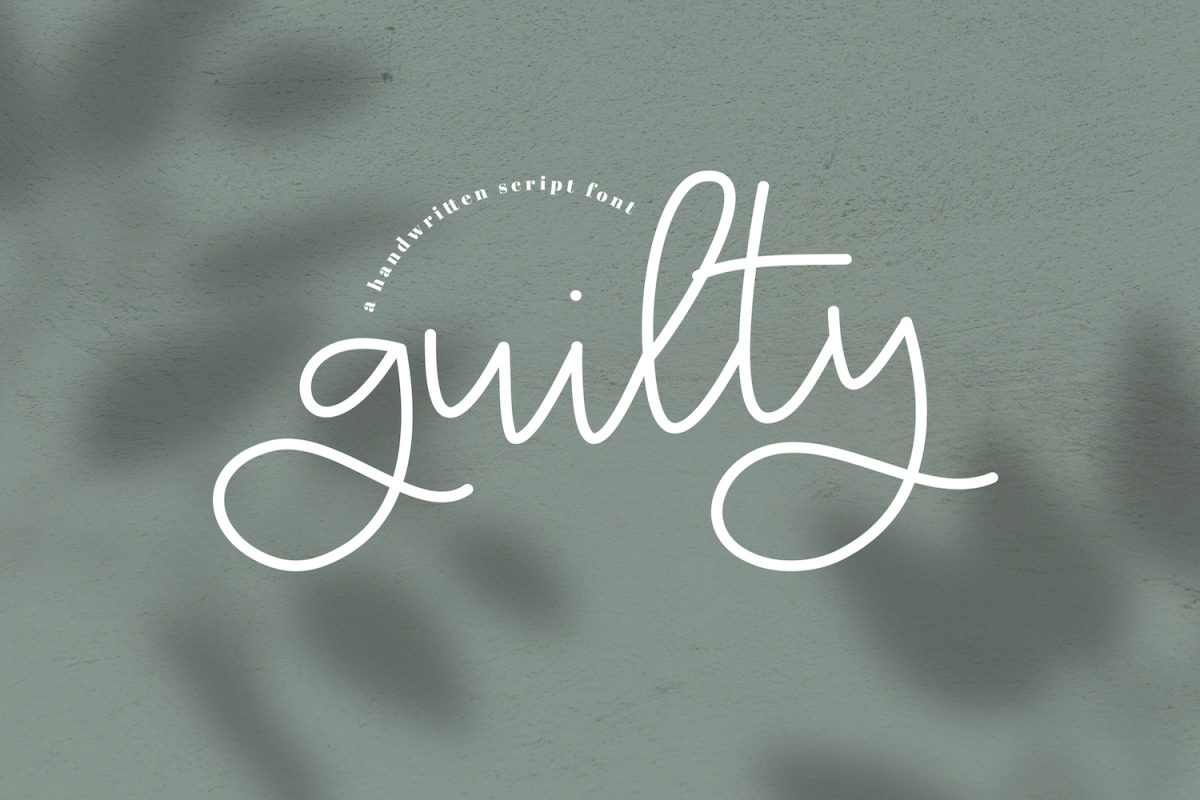
Guilty - A Handwritten Script Font
Guilty
Guilty is a modern handwritten script font.
This font is perfect for crafts, logos, svg files, farmhouse designs, invitations, wedding decor, stickers and more!